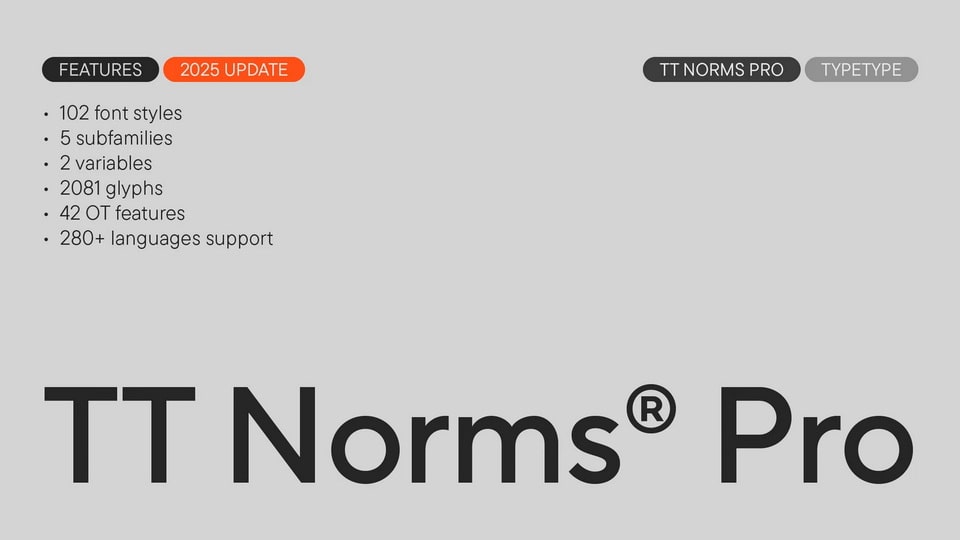
Download TT Norms® Pro font, a functional geometric sans serif typeface for aesthetic design choices and TypeType studio’s bestseller. This stylish, elegant, and versatile font will become the full-fledged core of your collection.
Designer: TypeType Team